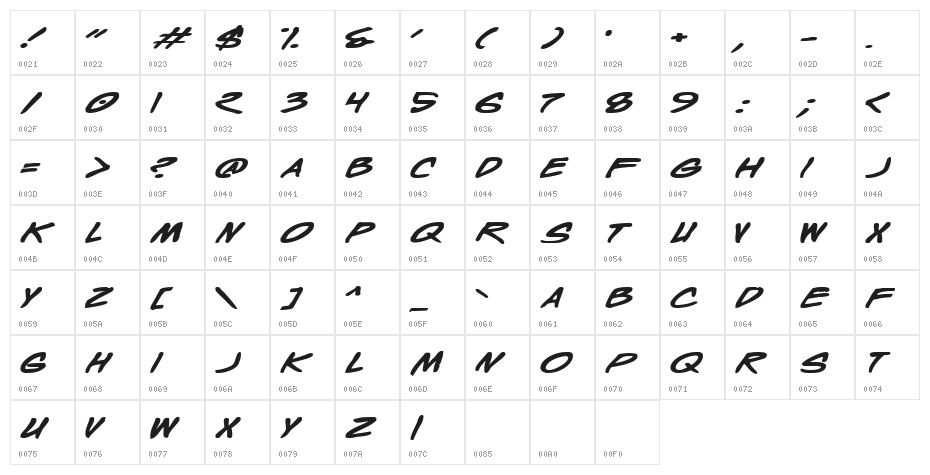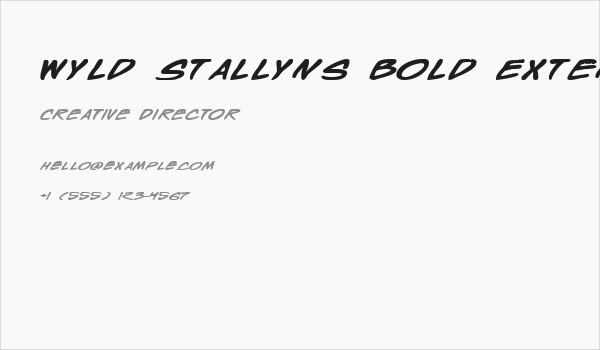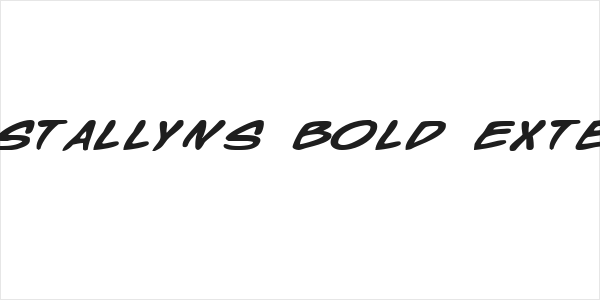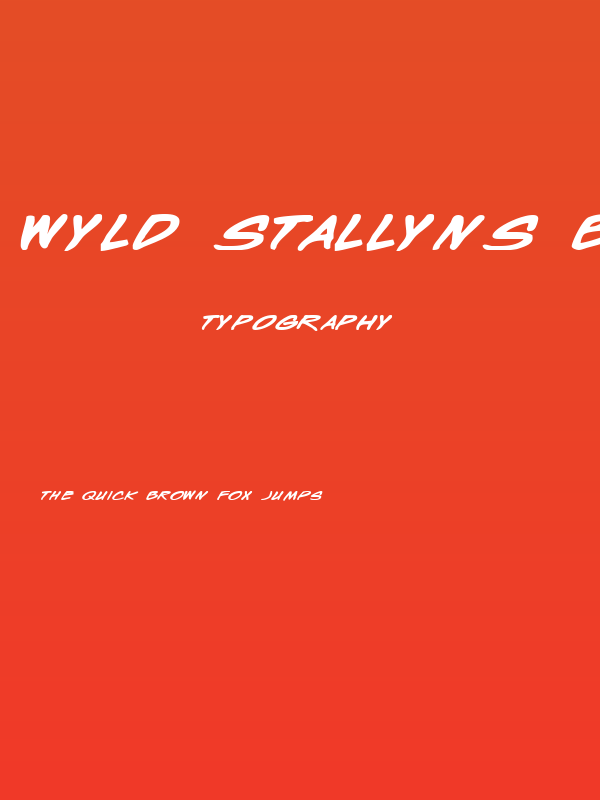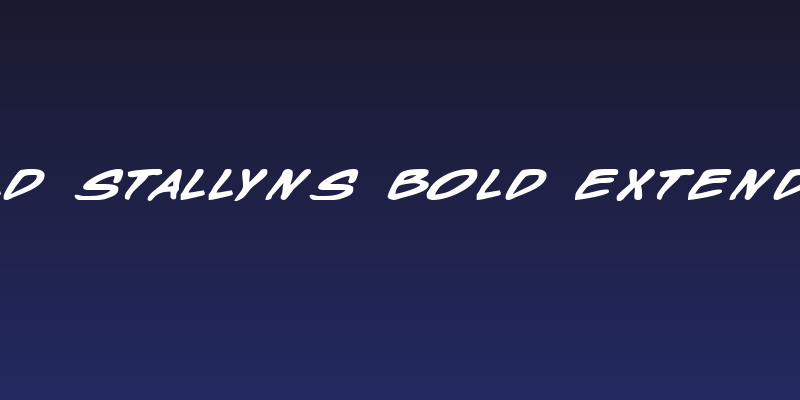
Wyld Stallyns Bold Extended Font
Wyld Stallyns Bold Extended Description
This font features a bold and dynamic script style with a sense of movement and energy. The letters are slanted, giving it an italicized appearance, and the strokes are thick and consistent throughout, contributing to its boldness. The characters are closely spaced, enhancing the compact and cohesive look. The font has a modern and edgy feel, suitable for projects that require a strong and impactful visual presence. It includes both uppercase and lowercase letters, numbers, and a variety of special characters, making it versatile for different design needs.
| Proposed Projects | Ideal for branding, logos, posters, and any design that requires a bold statement. |